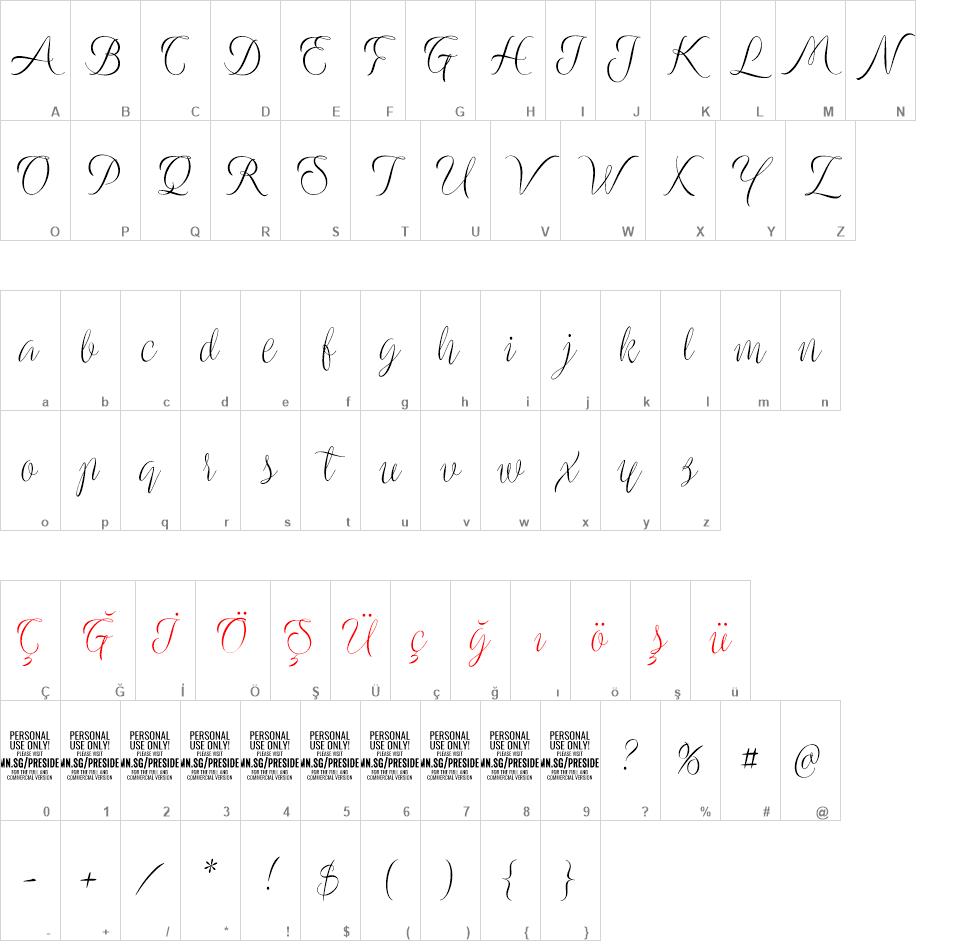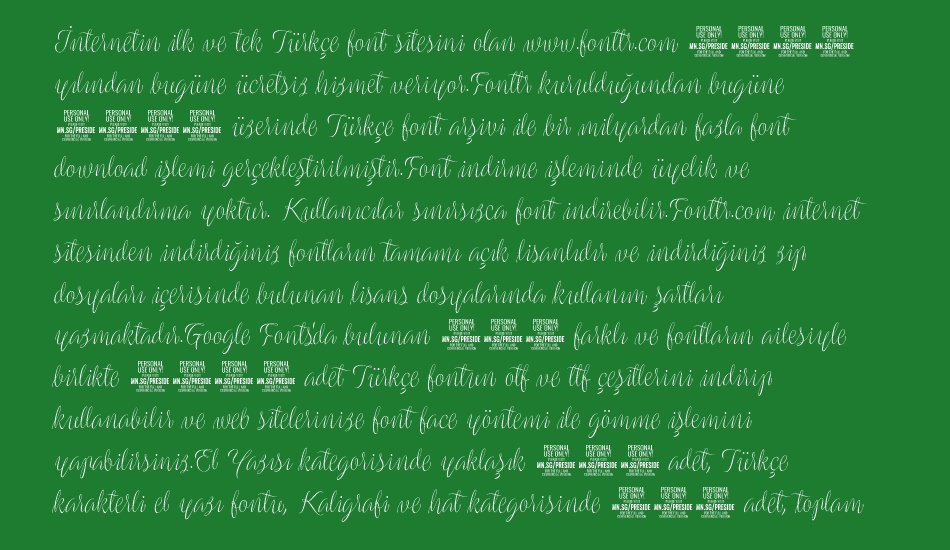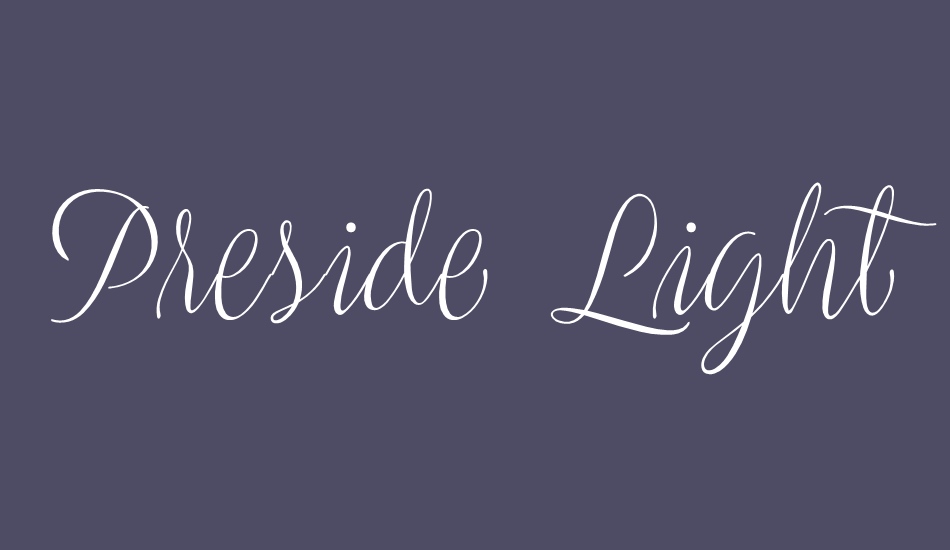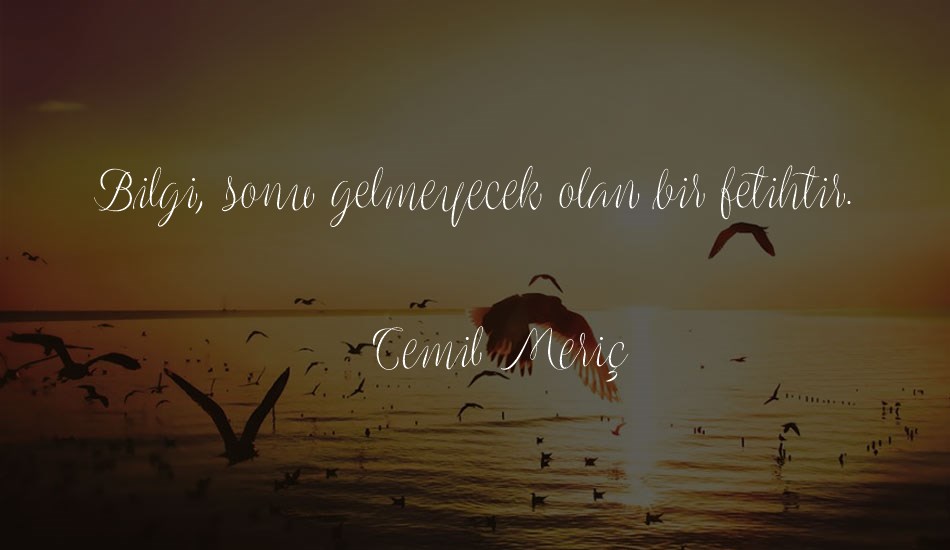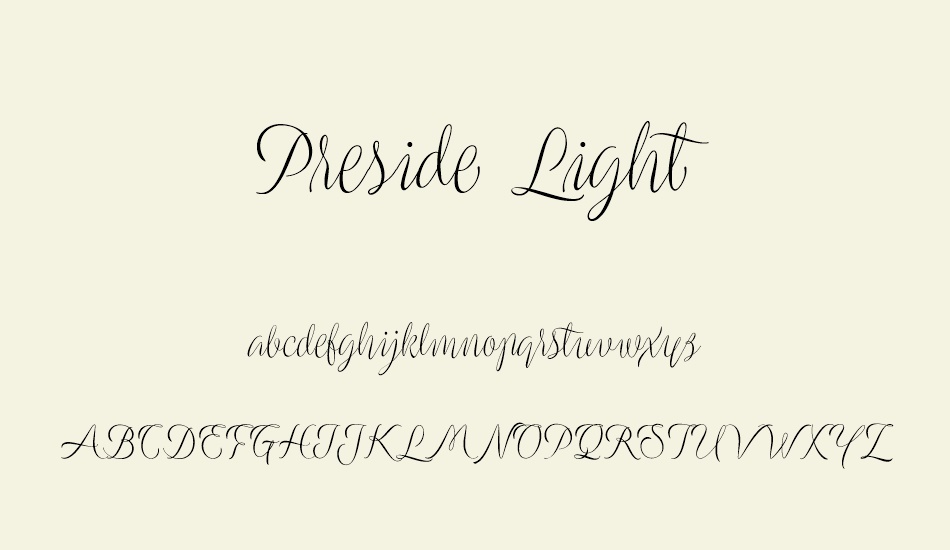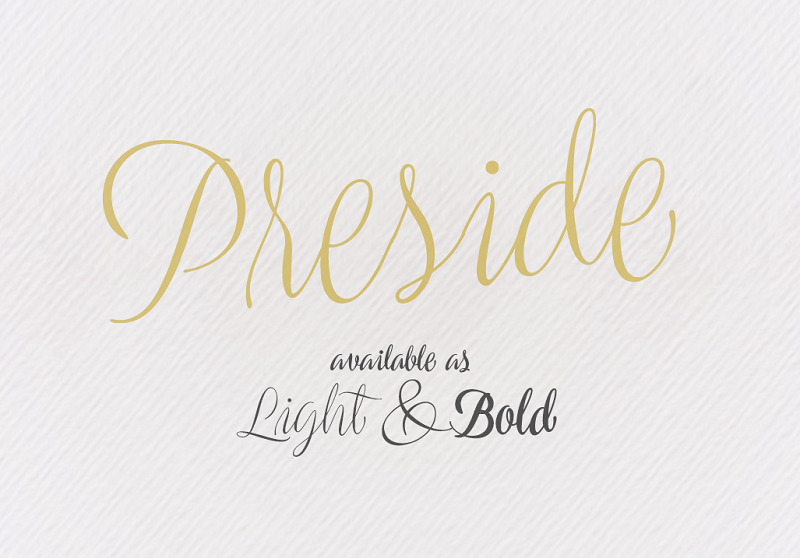
Preside font
Preside is a fresh, handpainted script typeface.
Its round curves and soft shapes will add warmth to your project.
Created by M?ns Greb?ck, this font contains OpenType functions such as contexutal
alternates, ligatures and stylistic alternates, and comes in two styles: Light and Bold.
With a large collection of special letters and characters, Preside supports hundreds of languages.